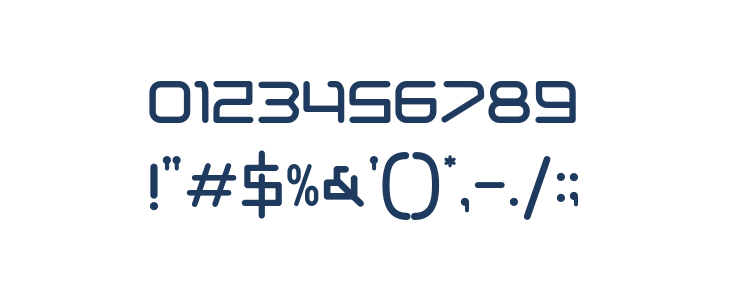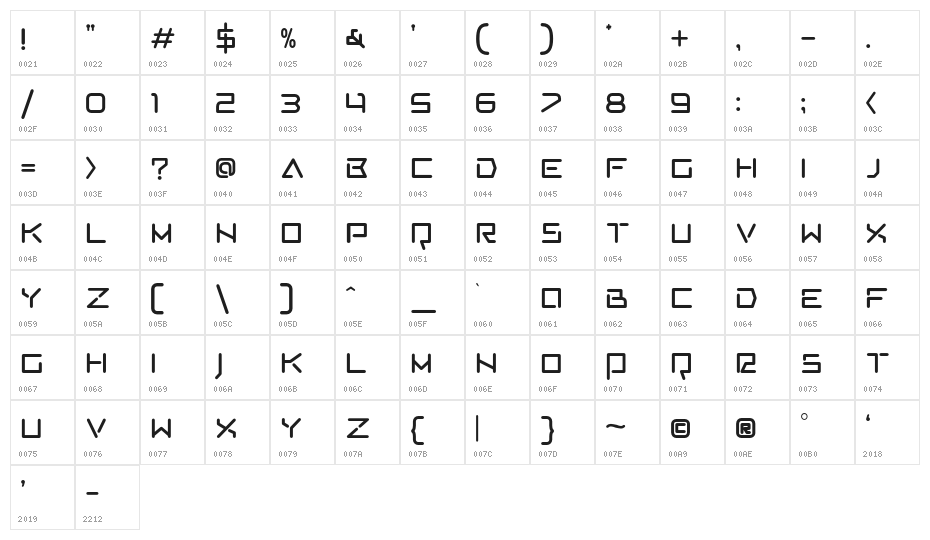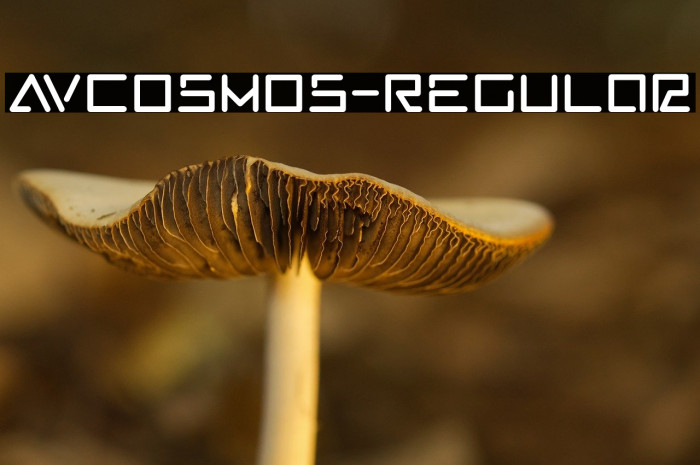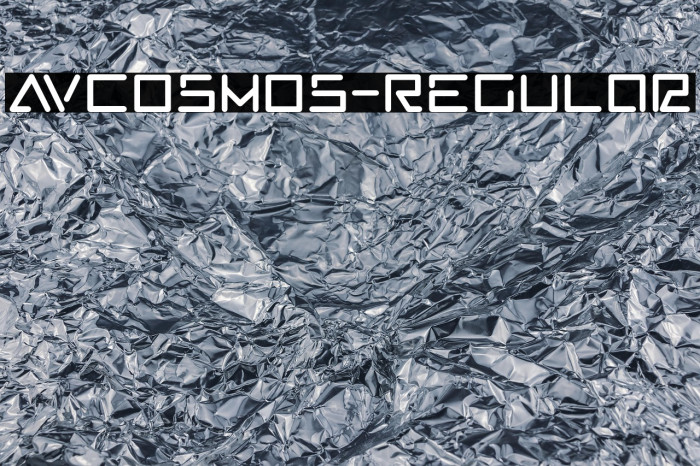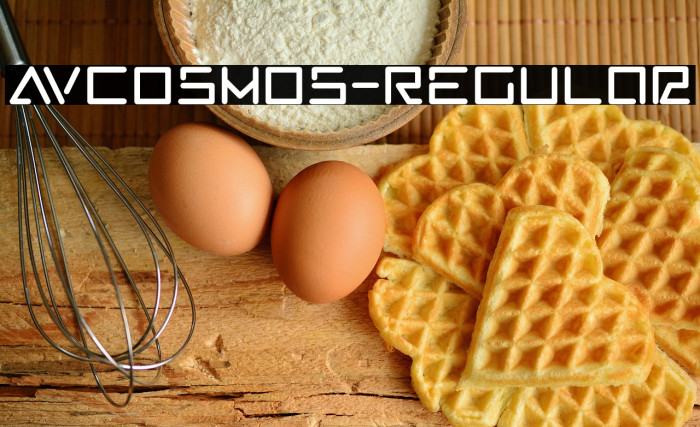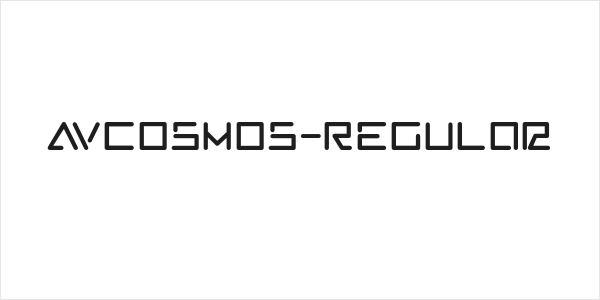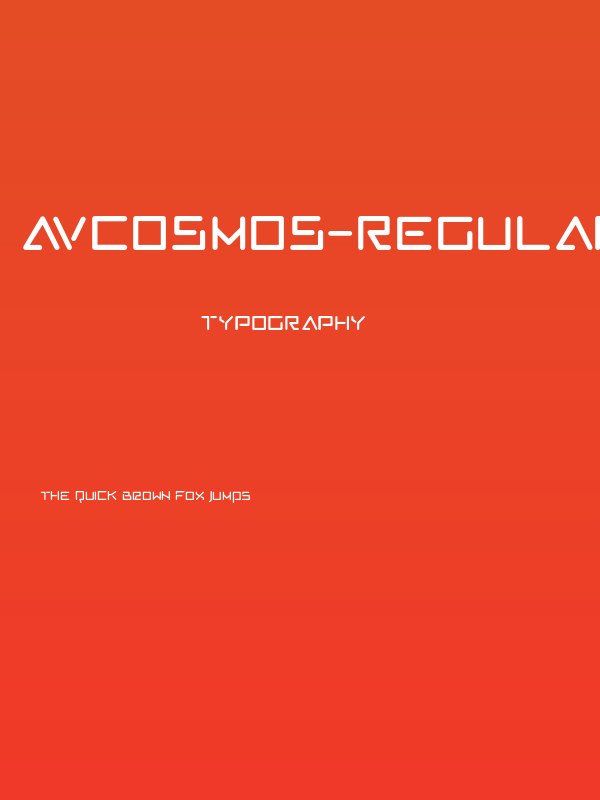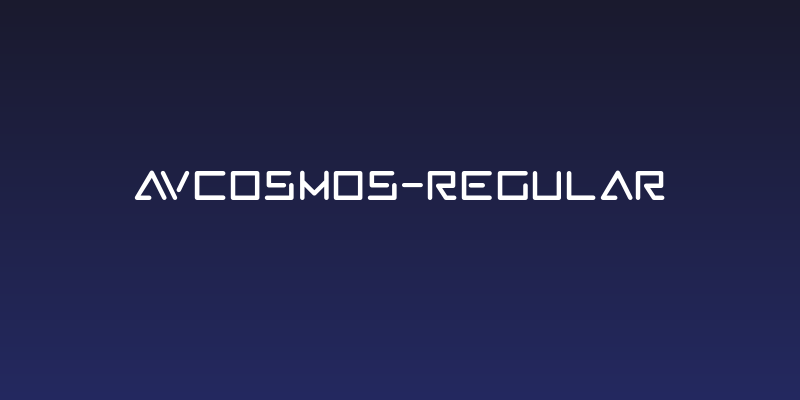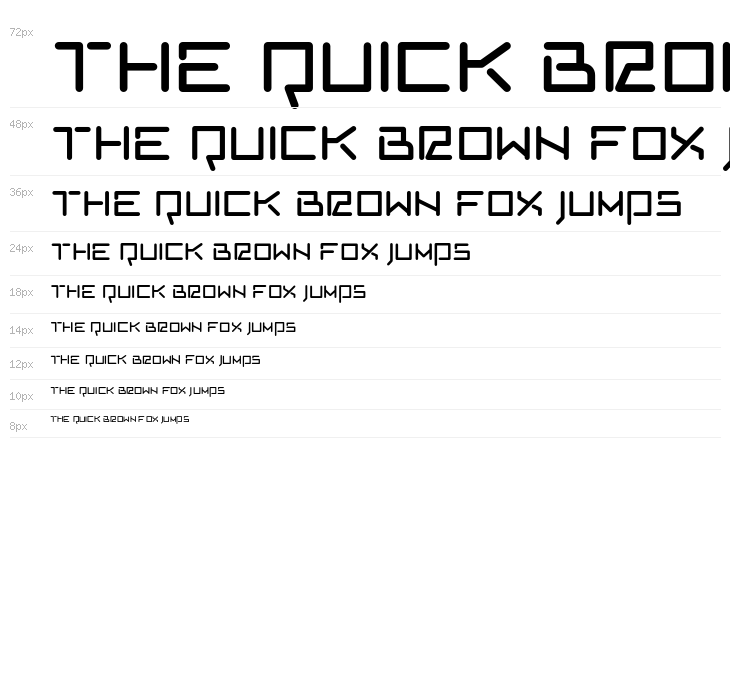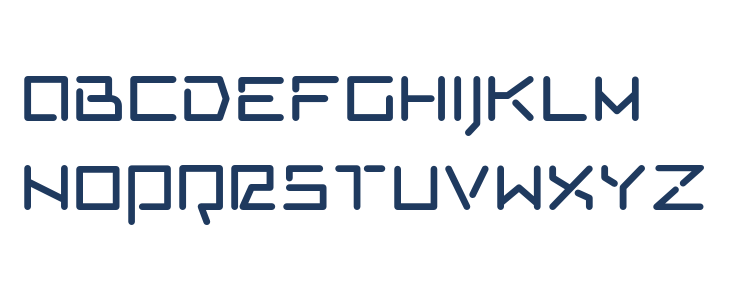
AVCosmos-Regular Font
AVCosmos-Regular Description
This font features a futuristic and geometric design, characterized by its clean lines and angular shapes. The uppercase and lowercase letters maintain a consistent style, with a focus on symmetry and balance. The numerals are distinct and align well with the overall aesthetic, providing a cohesive look. Special characters are designed to match the font's modern and sleek appearance, making it suitable for a variety of digital and print applications. The font's unique style is both eye-catching and versatile, ideal for projects that require a contemporary and tech-inspired feel.